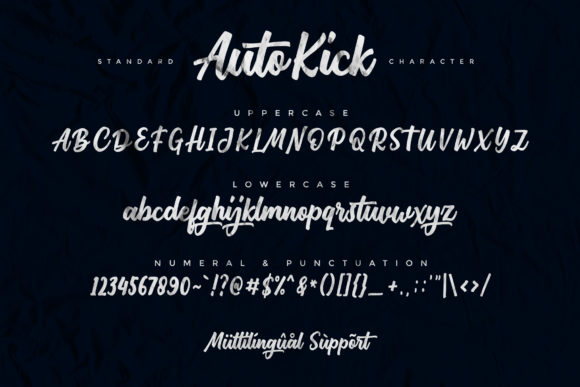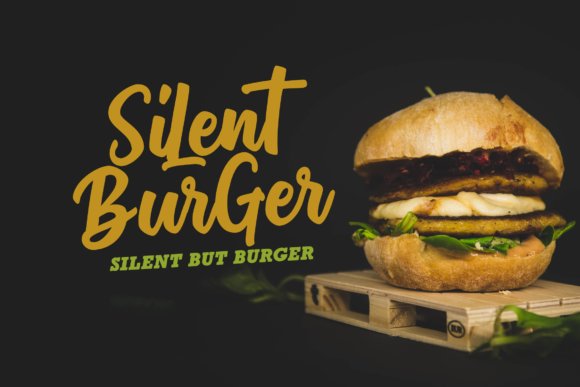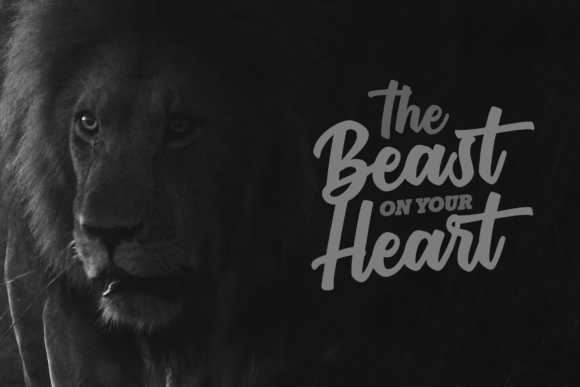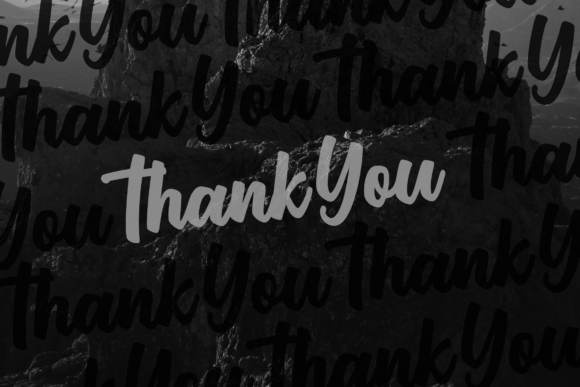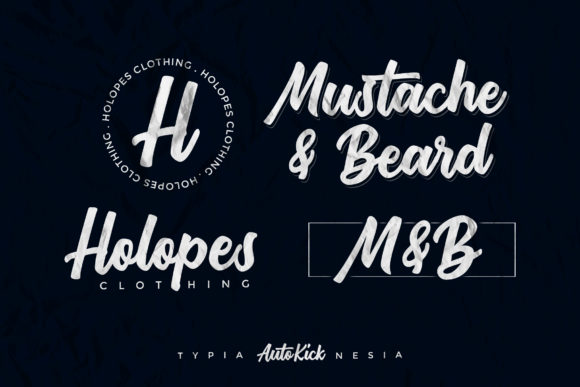
Introducing Auto Kick Font: A Stunning Script Font with Vintage Charm
Are you a designer or crafter looking for a font that can add a touch of elegance and sophistication to your projects? Look no further than Auto Kick Font, a beautiful script font with a unique feel that’s sure to inspire. In this article, we’ll take a closer look at Auto Kick Font, its features, and how you can use it to elevate your designs.
What is Auto Kick Font?
Auto Kick Font is a stunning script font that’s perfect for anyone looking to add a touch of vintage charm to their designs. With its unique feel and elegant lines, this font is sure to make your projects stand out. Whether you’re working on a logo, brochure, or website, Auto Kick Font is the perfect choice.
Features of Auto Kick Font
So, what makes Auto Kick Font so special? Here are just a few of its key features:
- Unique feel: Auto Kick Font has a distinctive feel that’s both elegant and playful. Its lines are smooth and flowing, making it perfect for creating beautiful text-based designs.
- Vintage charm: With its classic lines and sophisticated feel, Auto Kick Font is perfect for anyone looking to add a touch of vintage charm to their designs.
- Script font: As a script font, Auto Kick Font is perfect for creating beautiful, handwritten-style text. It’s ideal for use in projects where you want to add a personal touch.
- High-quality design: Auto Kick Font is designed to the highest standards, ensuring that it looks great in any size or format.
How to Use Auto Kick Font
So, how can you use Auto Kick Font in your designs? Here are a few ideas to get you started:
- Logos: Use Auto Kick Font to create a beautiful, elegant logo that’s sure to make your brand stand out.
- Brochures: Add a touch of sophistication to your brochures with Auto Kick Font. It’s perfect for creating headings, titles, and other text-based elements.
- Websites: Use Auto Kick Font to add a touch of elegance to your website. It’s perfect for use in headings, titles, and other text-based elements.
- Social media graphics: Create beautiful social media graphics with Auto Kick Font. It’s perfect for use in posts, stories, and other visual elements.
Tips for Using Auto Kick Font
Here are a few tips for getting the most out of Auto Kick Font:
- Use it sparingly: While Auto Kick Font is beautiful, it’s best used sparingly. Use it to create headings, titles, and other text-based elements, but avoid overusing it.
- Pair it with other fonts: Auto Kick Font looks great when paired with other fonts. Try pairing it with a clean, sans-serif font for a beautiful contrast.
- Experiment with colors: Auto Kick Font looks great in a variety of colors. Experiment with different colors to find the one that works best for your design.